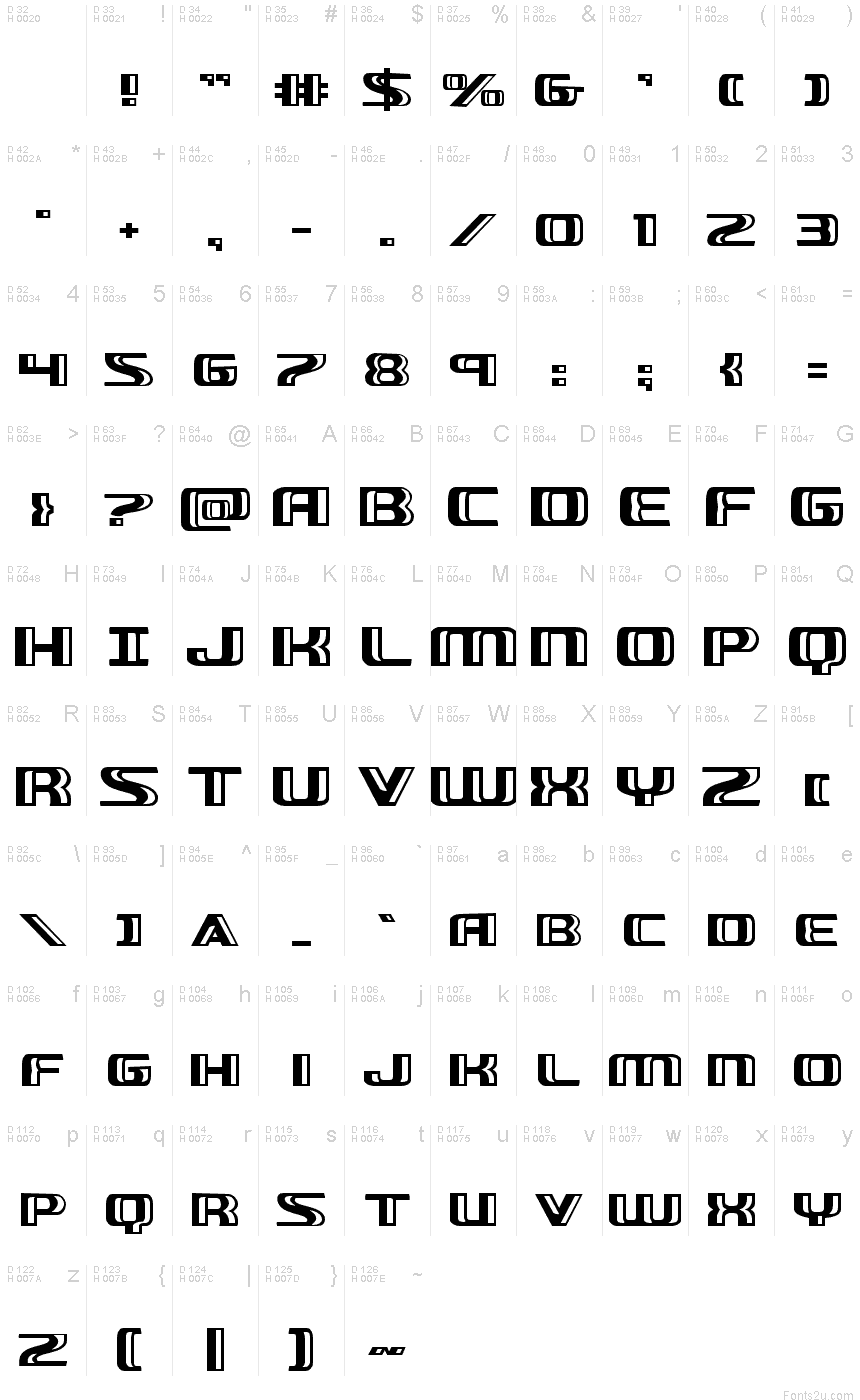
Grease Gun Expanded by Iconian Fonts is a free groovy display font with a wide, machine-tooled profile. Thick outer strokes wrap around narrow interior cuts, and the rounded corners soften its otherwise mechanical geometry.
It suits automotive brands and streetwear labels drawn to retro-futurist lettering. The broad shapes also fit racing posters and electronic music graphics. On magazine covers, its stretched forms can turn a masthead or feature title into a strong horizontal band, echoing the sleek surfaces and custom detailing associated with vehicle culture.
Grease Gun Expanded